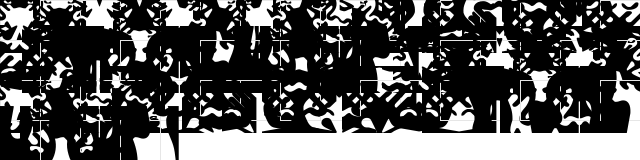
ObeyRorschach Regular
Design Context for ObeyRorschach Typeface
ObeyRorschach is a composed and adaptable typeface that performs quietly and consistently across a wide range of design contexts.